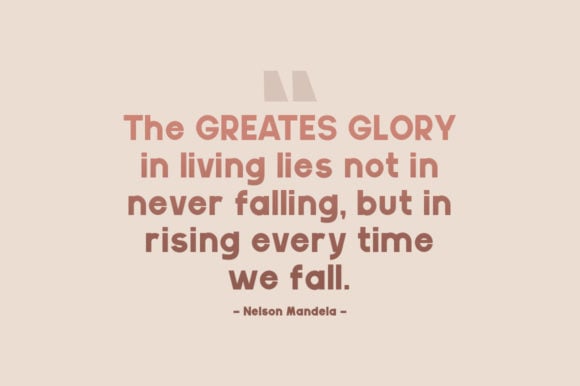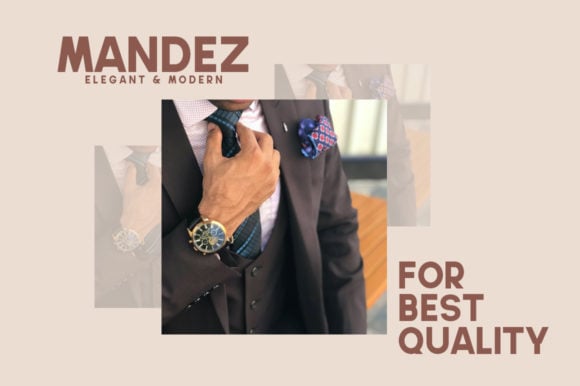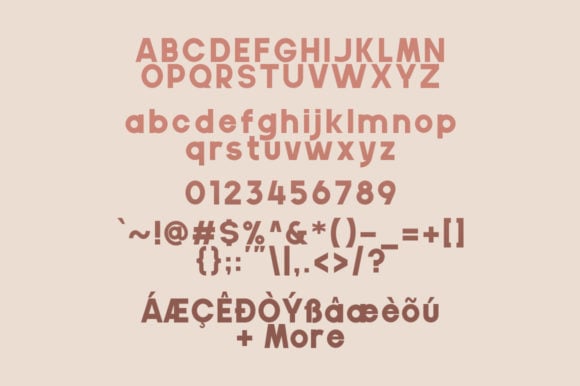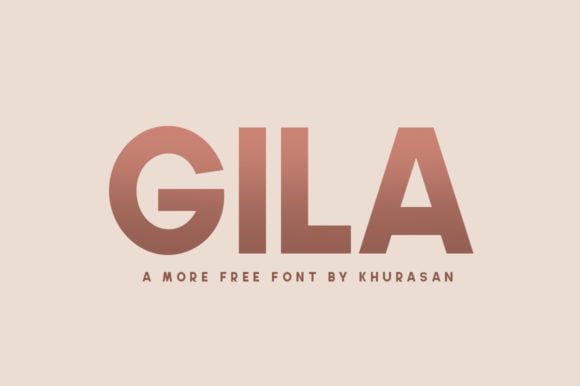
Gila Font
Gila is a bold and contemporary display font with sharp edges and striking geometric forms. Its clean yet edgy design makes it perfect for headlines, branding, and modern design projects. Gila commands attention with its strong presence, offering a perfect balance of style and readability for impactful visual communication.